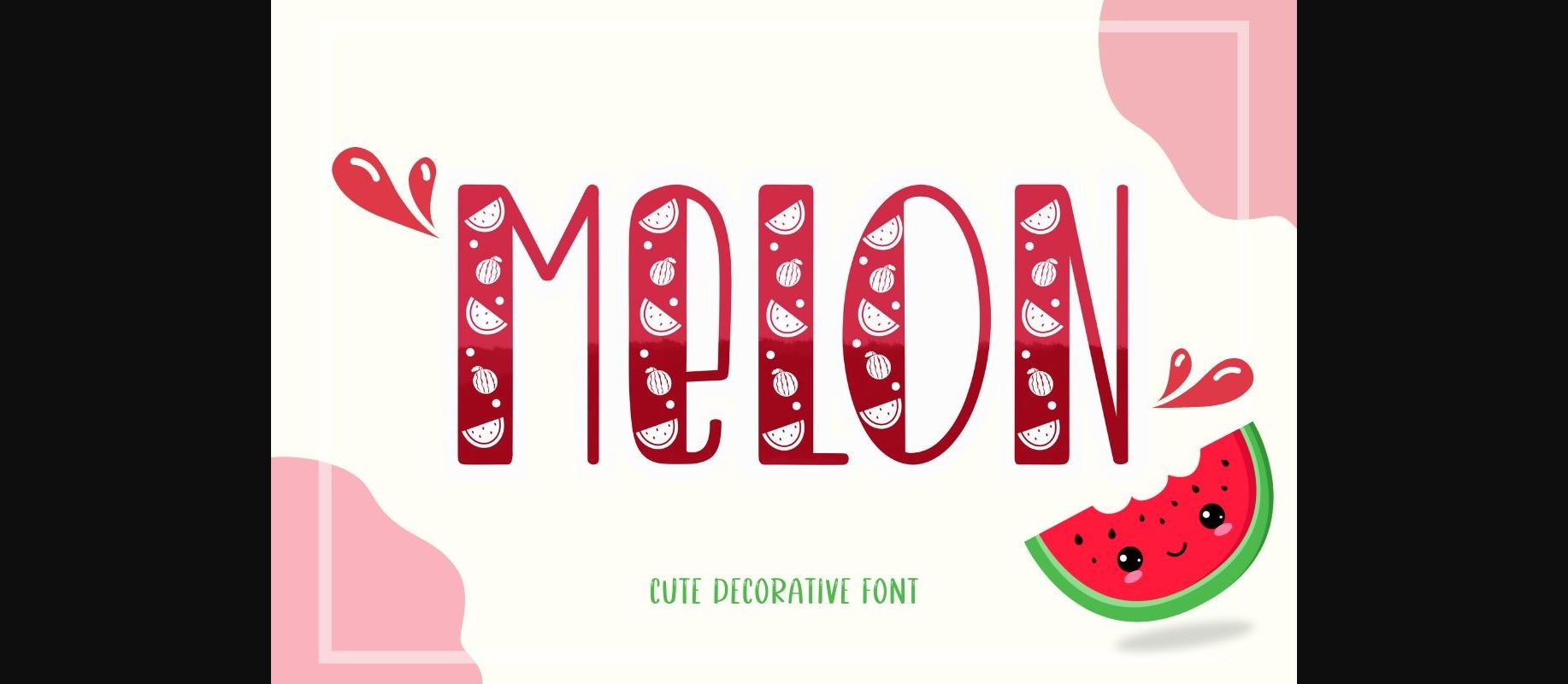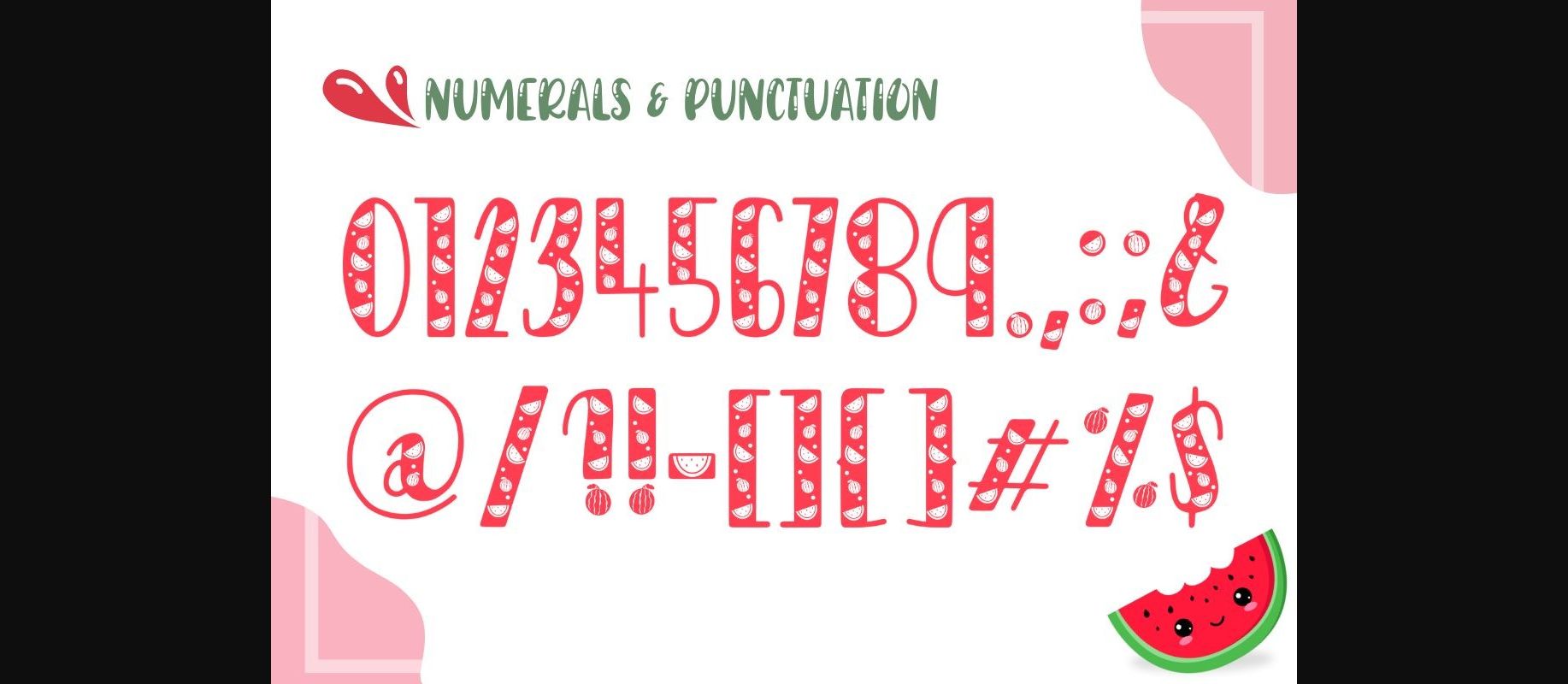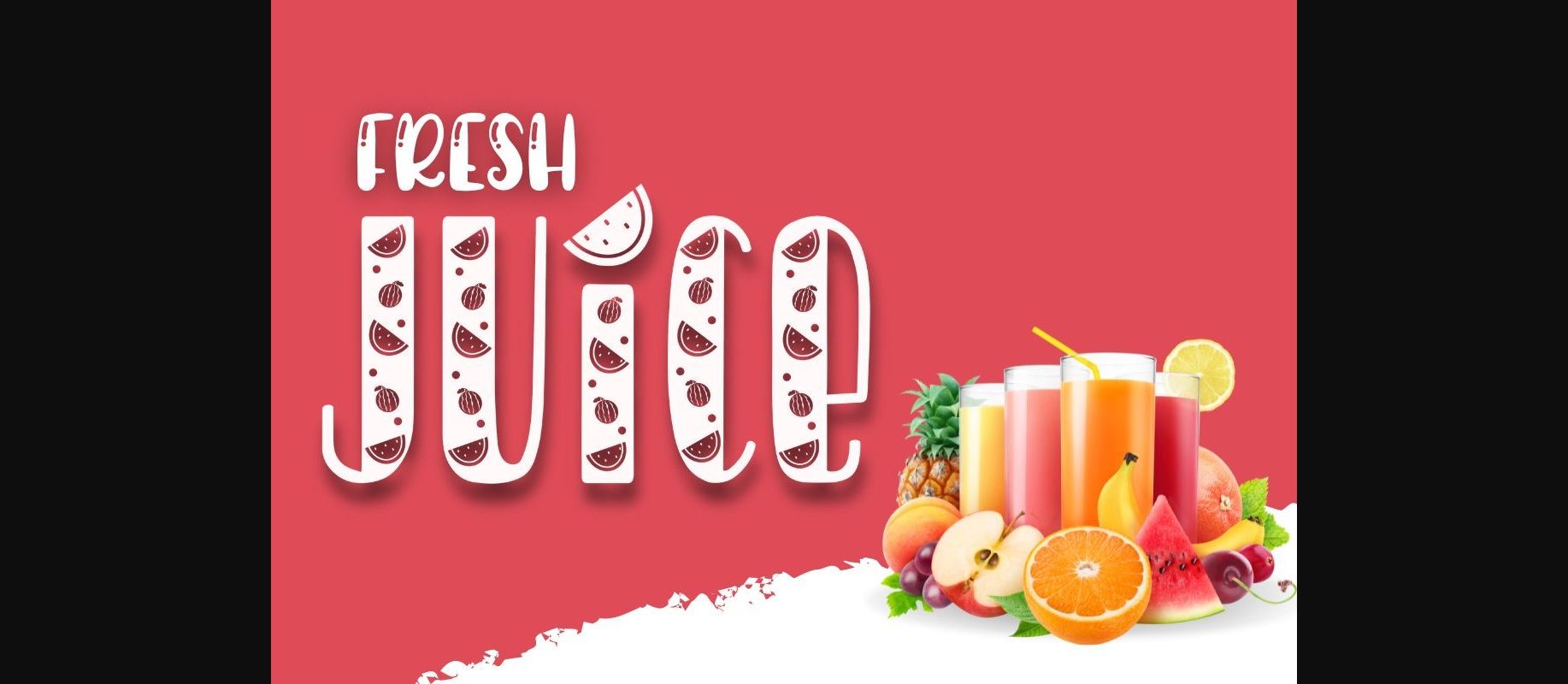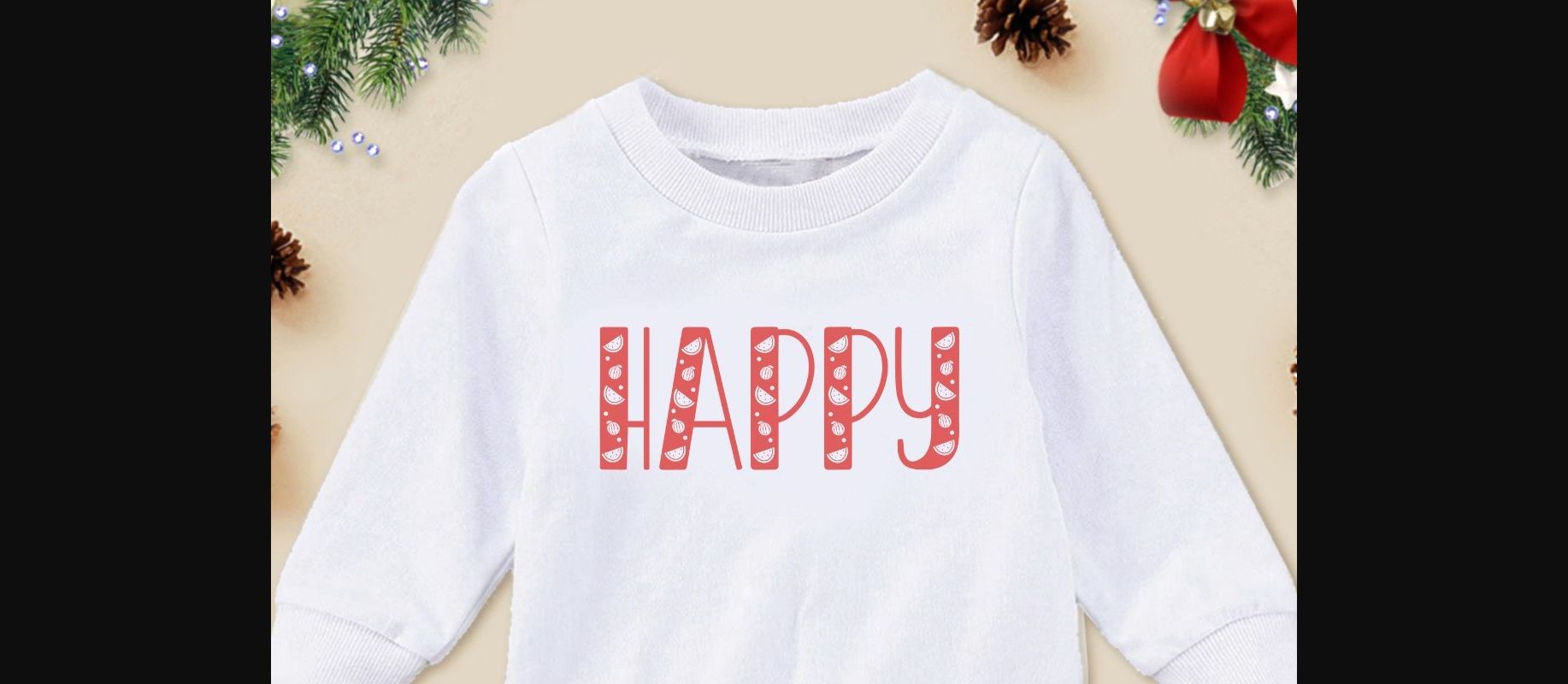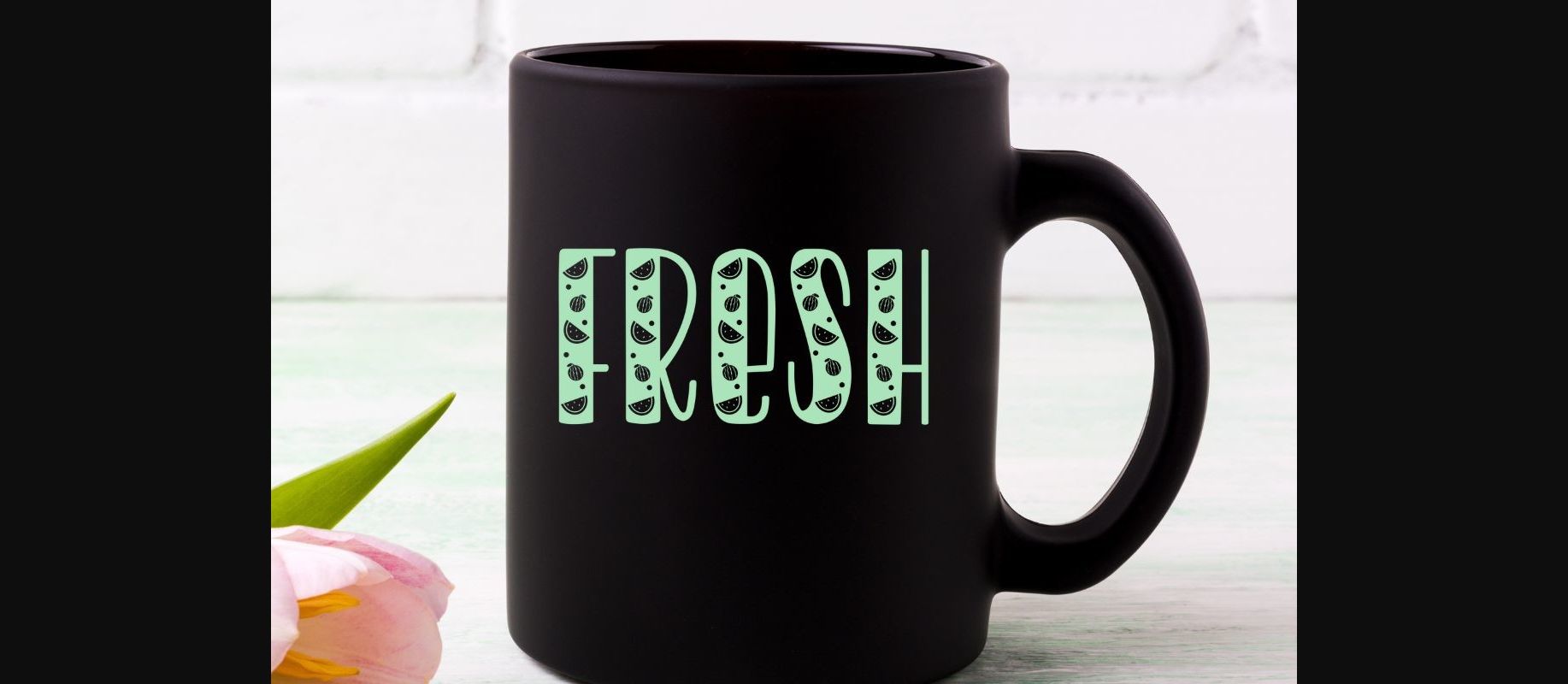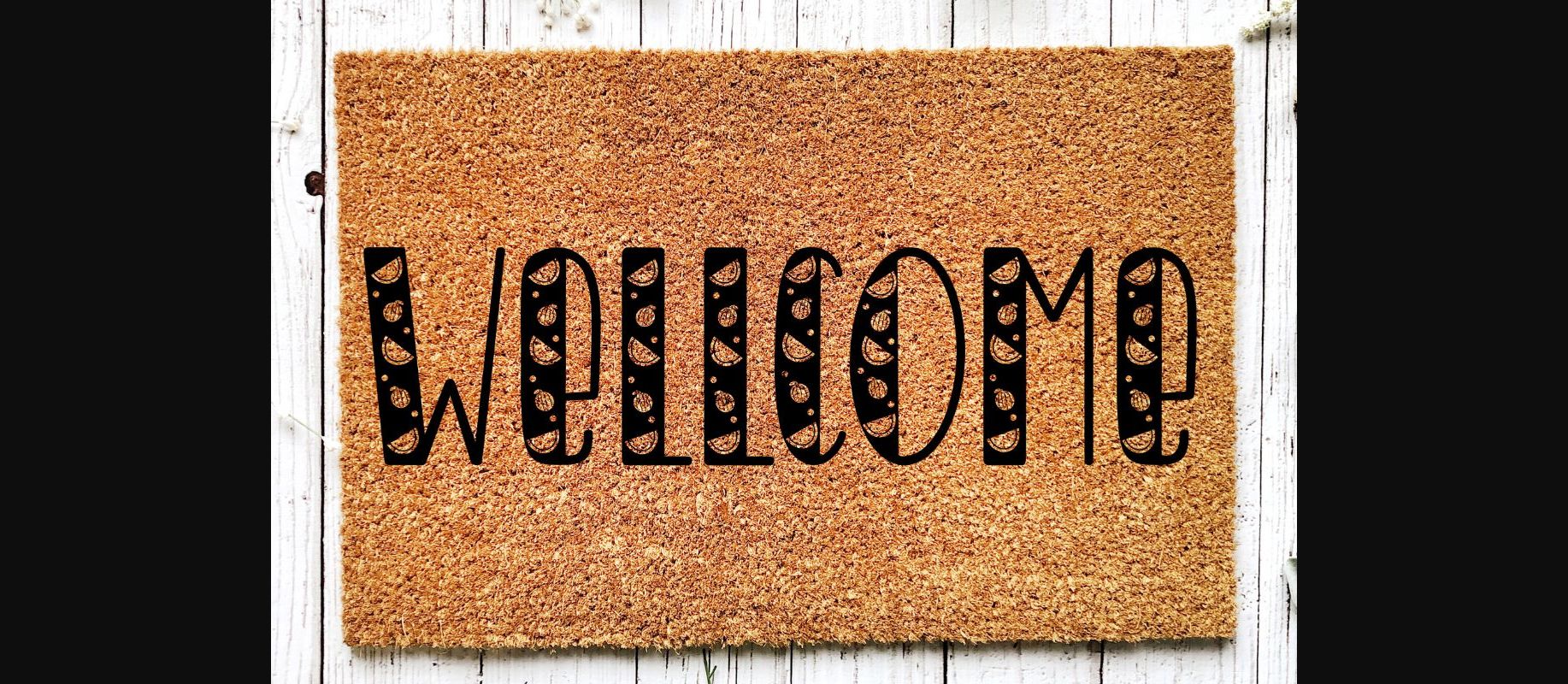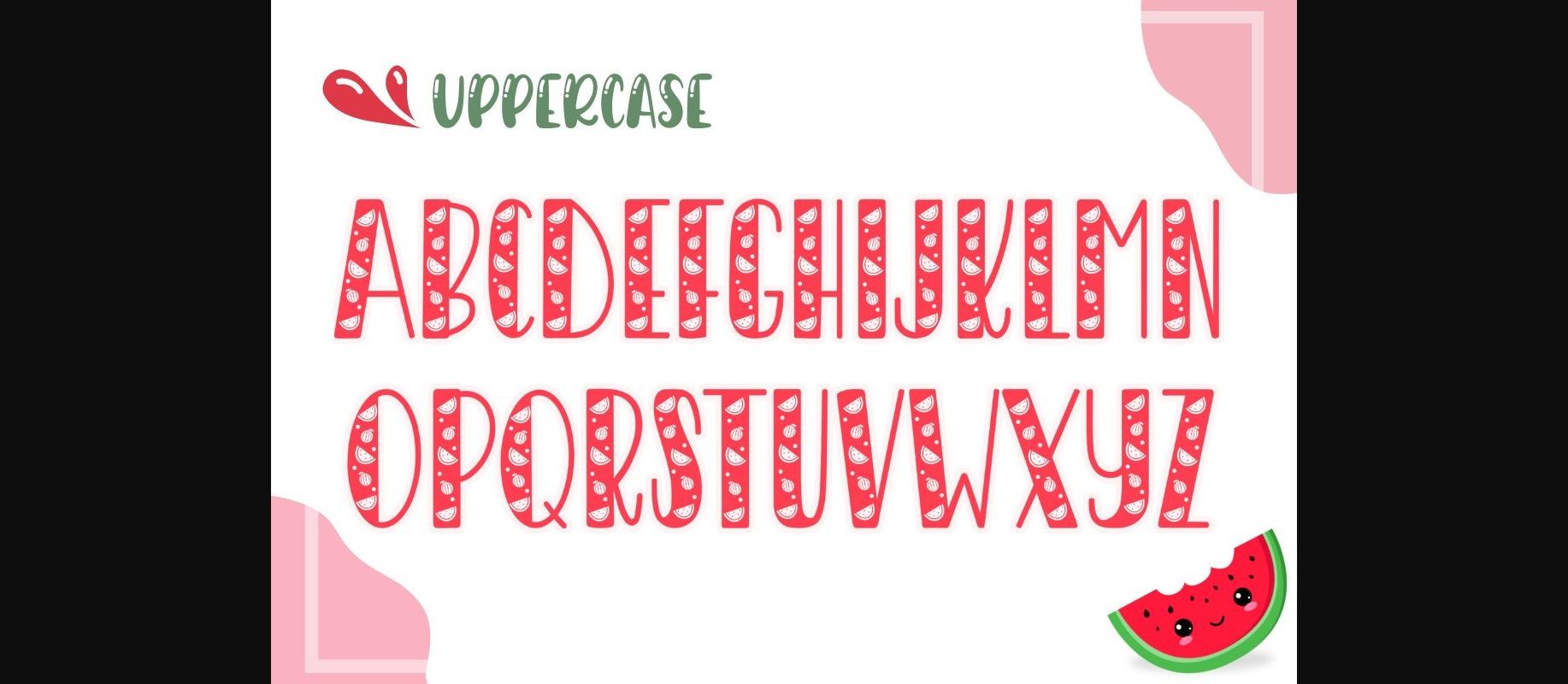
Melon Font
About Melon Font
Melon is a cute and fun decorative font that combines watermelon elements with a handwritten font. It is perfect for creating a wide variety of new designs to match products such as banners, content, mugs, cards, shirts, stationery, social media posts, and more!